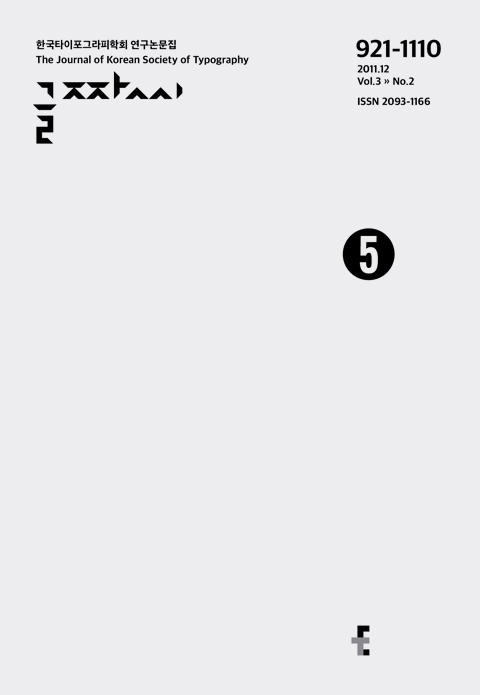
1. Kang Ko-ni / Study on the Improvement of Pavement Word Marking Seen from Typographic Viewpoints
2. Lee Ji-eun, Nosaka Masashi / The difference of Emotional Structures between the Kinetic Typography and the Printed Typography
3. Sim Wu-jin / Punctuations as an environment of Hangeul Typography
4. Nosaka Masashi / A criterion of aesthetic value judgment in characters: on visual poetry and calligraphy
5. Lee Yong-je / A relationship between direction of writing and Hangul letter-form
A relationship between direction of writing and Hangul letter-form
Lee Yong-je (Kaywon School of Art & Design, Korea)
Abstract
Since its birth in 1446 the Hangul letter-form has been constantly changing from ‘Refined’ to ‘Handwritten’ and back to ‘Standardized Handwritten’. This is due in part to a) tools added to already geometric shapes b) the flexibility of handwritten letter-forms in a given uniform space and c) standardization of letter-forms contribute to the reading experience and visual stability of the text.
Vertical reading is influenced by standardized calligraphic letter-forms, which form the basis of Myeongjo classification. This letter-form tends to have its center toward the right, resulting in the letters themselves being slightly slanted upward, on the right. also with the writing sequence being relatively short the letter-forms tend to elongate downward. these characteristics coupled with the reasons for the changes in Korean letter-form, ‘New SM SeMyeongjo’ ‘New SM JoongMyeongjo’ ‘New SM ShinShinMyeongjo’ were found to have a progression from vertical to horizontal reading placement.
Recognizing the conditions of changes in the Korean letter-form may assist in designing future fonts or even re-designing current ones. For instance, when designing a suitable text font, perhaps consider a font that retains calligraphic tendencies.
A Criterion of Aesthetic value judgment in Characters: on Visual Poetry and Calligraphy
Nosaka Masashi (Hokkaido University, Japan)
Abstract
In typography, characters are designed by aesthetic handling of style, size, configuration and layout, beyond a function of communicative process in writing and reading them. Typography is not supposed to be a new concept born in the 20th century but a natural fruit of activities that have inherited an old sensibility to enjoy an image-modeling function in characters since an emergence of them followed by a long history of their development. A central argument of this paper is about a difference and a relationship between writing characters and designing them. To consider this issue, examples are examined of Han Meilin(1936- ), a Chinese famous artist; Feng Jicai(1942- ) who understands works by Meilin in the context of calligraphic art from a point of view that paintings and calligraphy have a common origin; visual poetry in Japan and the other countries; calligraphy by Hakuin(1686-1768), a Japanese Zen priest in the Edo period. Meilin’s aesthetic attitude to see a character as a visual shape is different from Jicai’s aesthetic attitude to evaluate Meilin’s works connected with calligraphic art. This suggests a difference between designing characters and writing them. To get to the point of the difference, this paper takes up visual poetry as a typical example of characters used to design and calligraphy as a typical example of writing characters. As a conclusion, difference and common components between visual poetry and calligraphy are specified.
Punctuations as an environment of Hangeul Typography
Sim Wu-jin (Mulgogi Publishing, Korea)
Abstract
The environment of Hanguel Typography has been improved by many people since the invention of Hunminjeongeum. Yet, typography methodologies of Latin Alphabet and Japanese Kana are still used in Hanguel typesetting. Typographic infrastructures, such as independent typesetting methodologies, punctuation guidelines, font production standards, are currently insufficient.
Hanguel, however, is also a very quickly evolving letter considering the period of its dissemination and wide usage. In order to improve the Hanguel Typography, which is showing an impressive growth since the late 20c, compensation of the infrastructure foundation is required.
The punctuation usage environment, which takes up a significant portion of Hanguel text type font glyph and has complex structure and history, was studied in this paper. Problems of current punctuation typesetting was analyzed. Alternative options to improve font production and typesetting environment was proposed.
This study is hoped to raise a small opportunity for the increase in Hanguel fonts compatibility and implement efficient Hanguel Typography process.